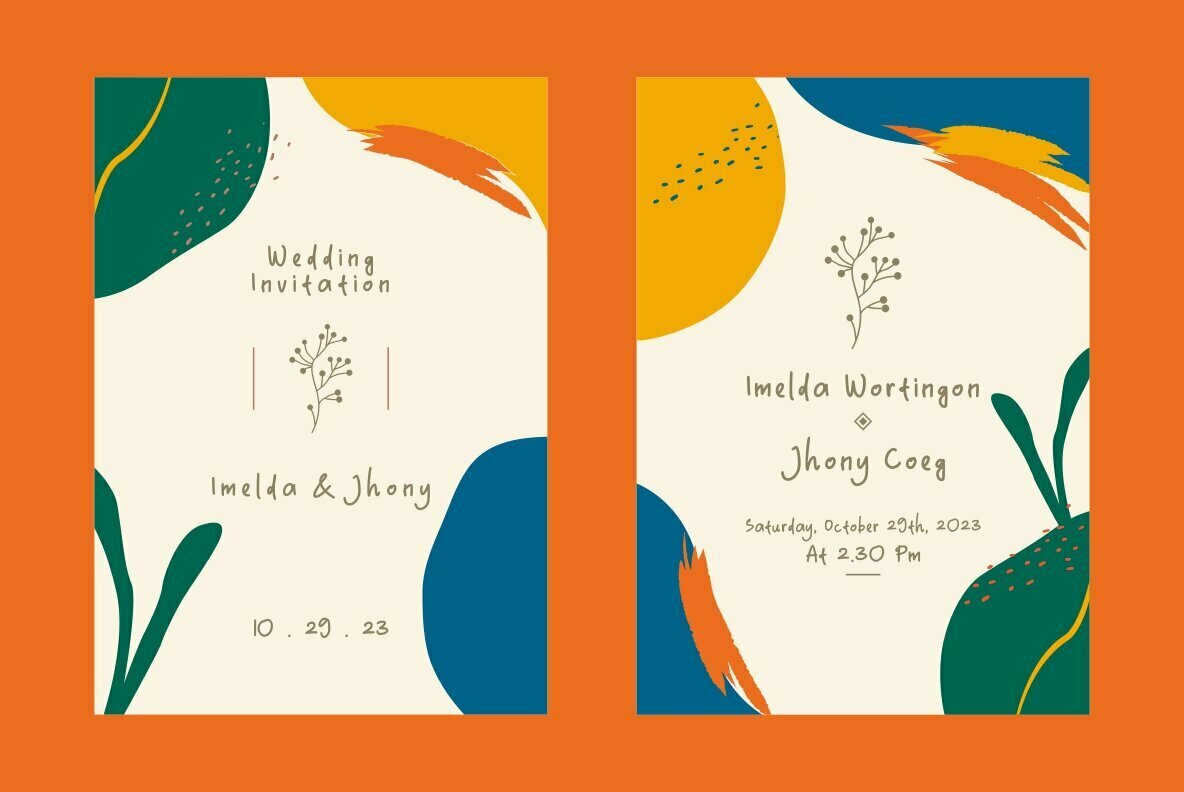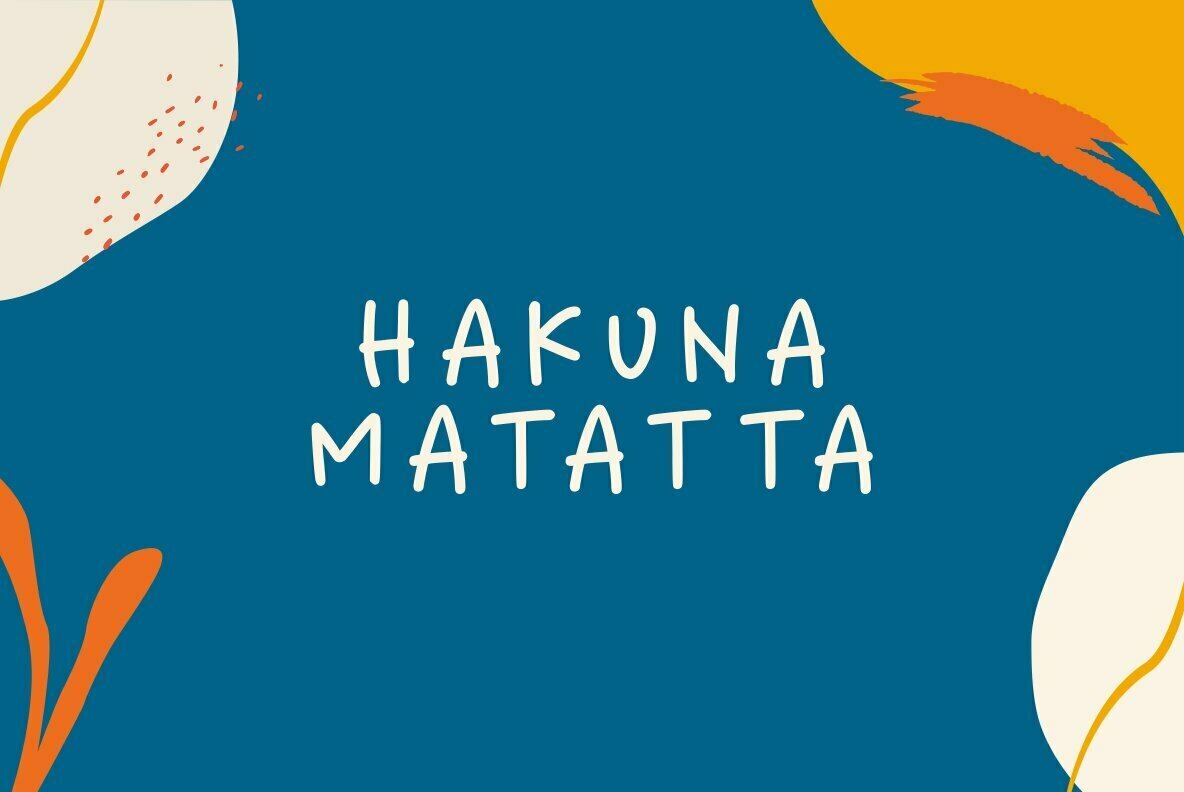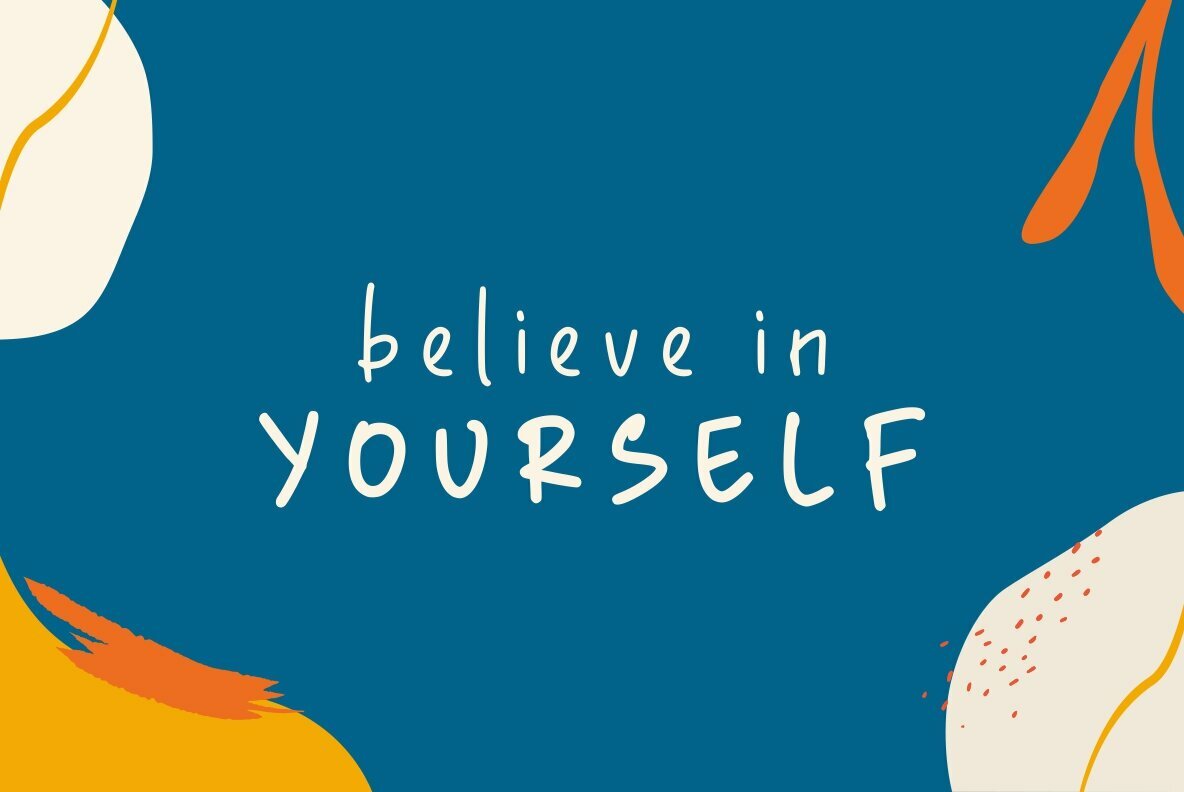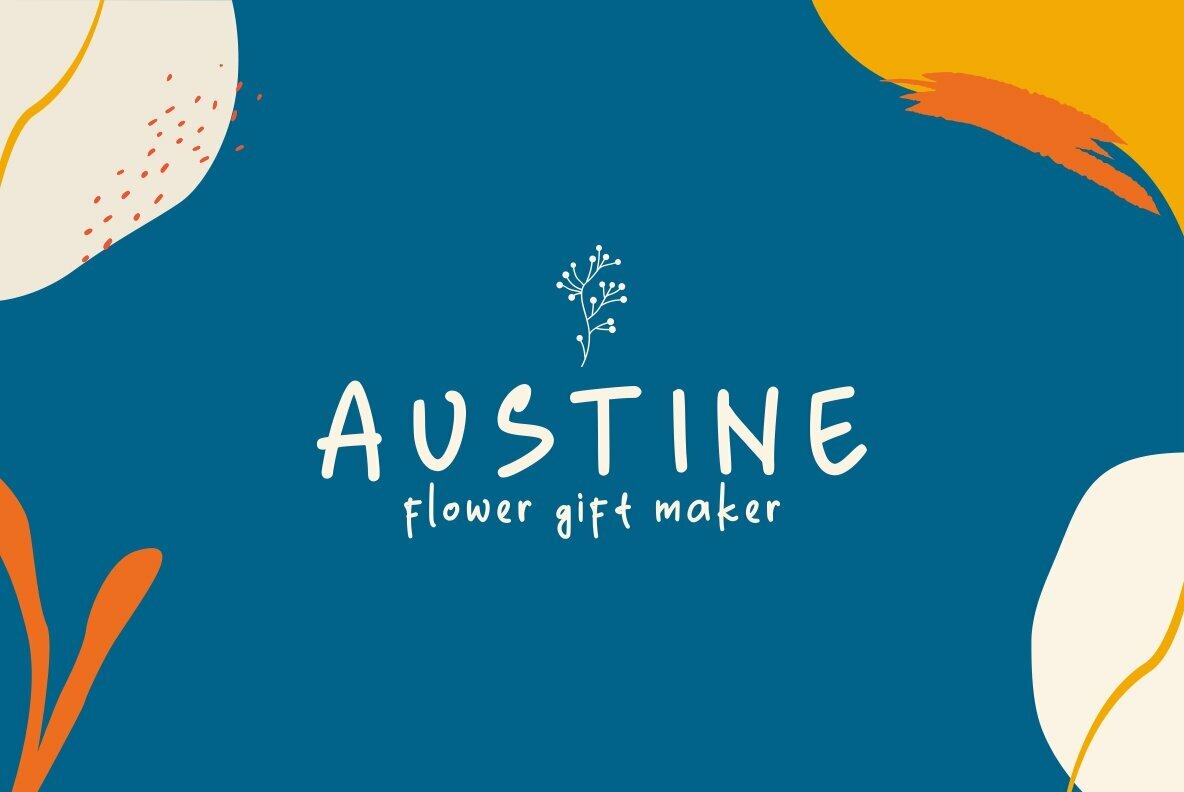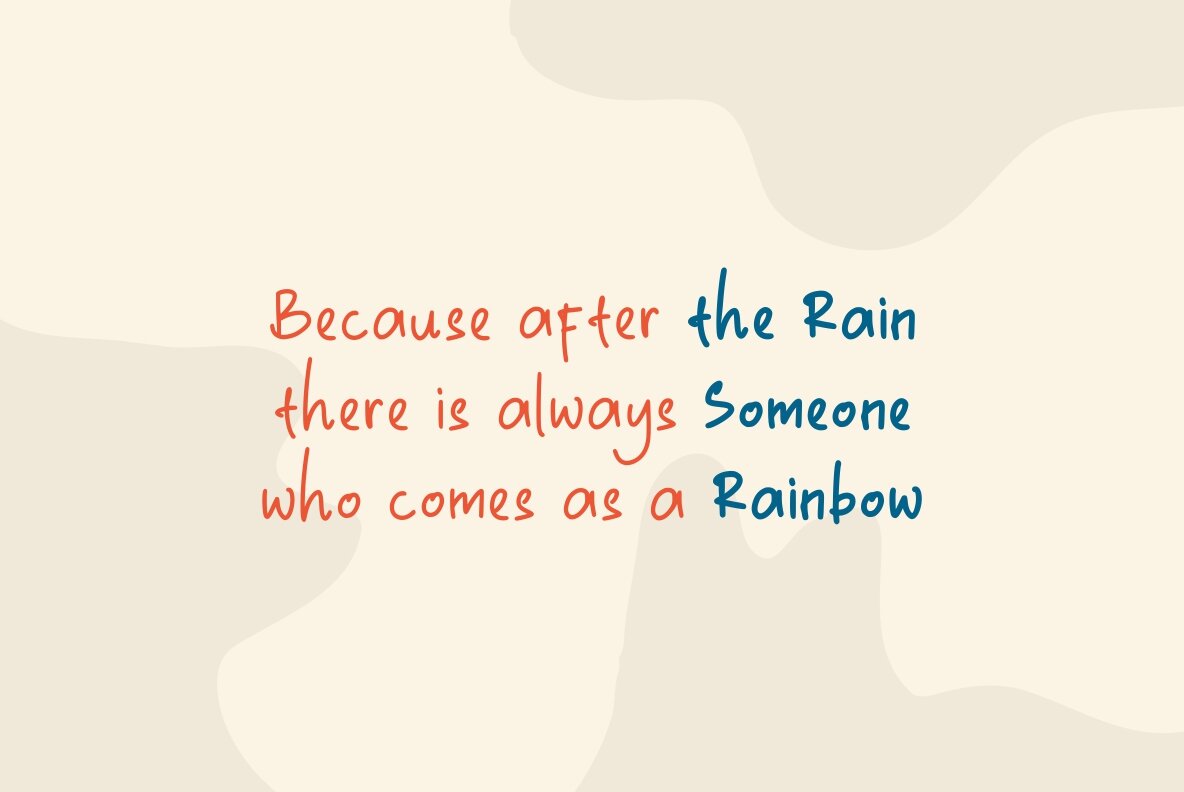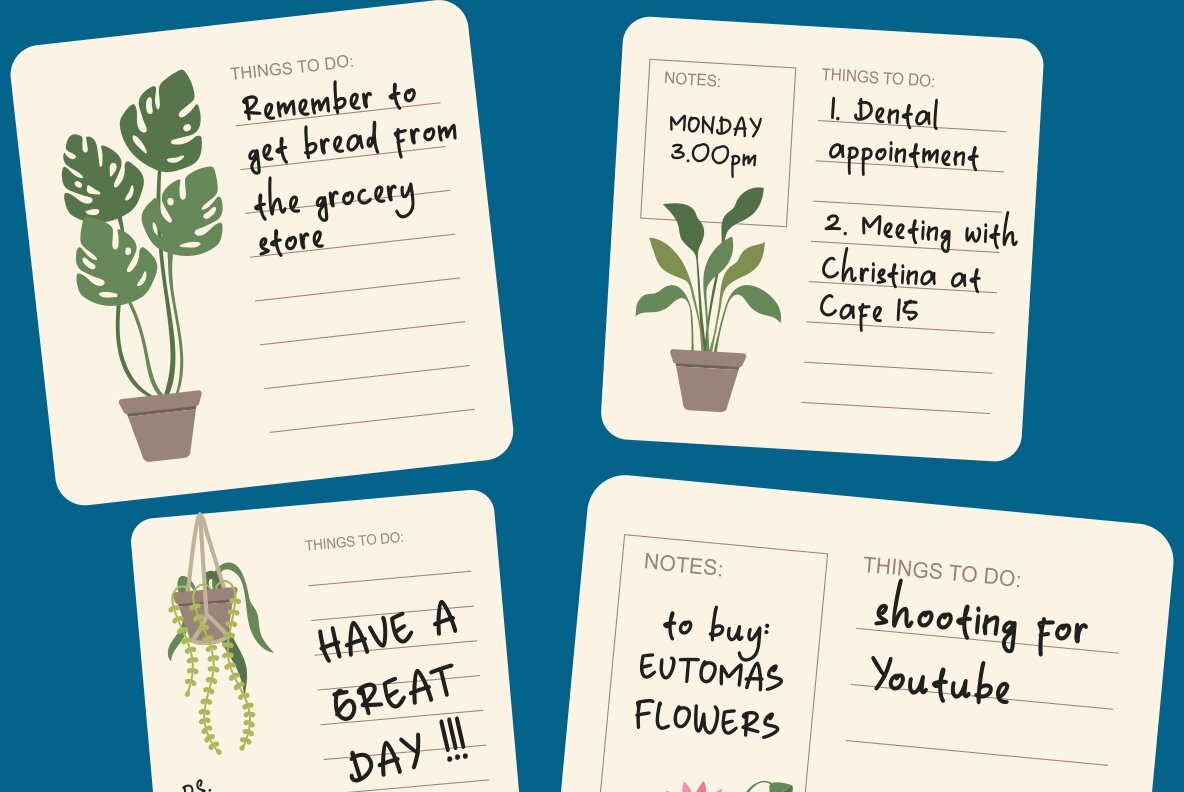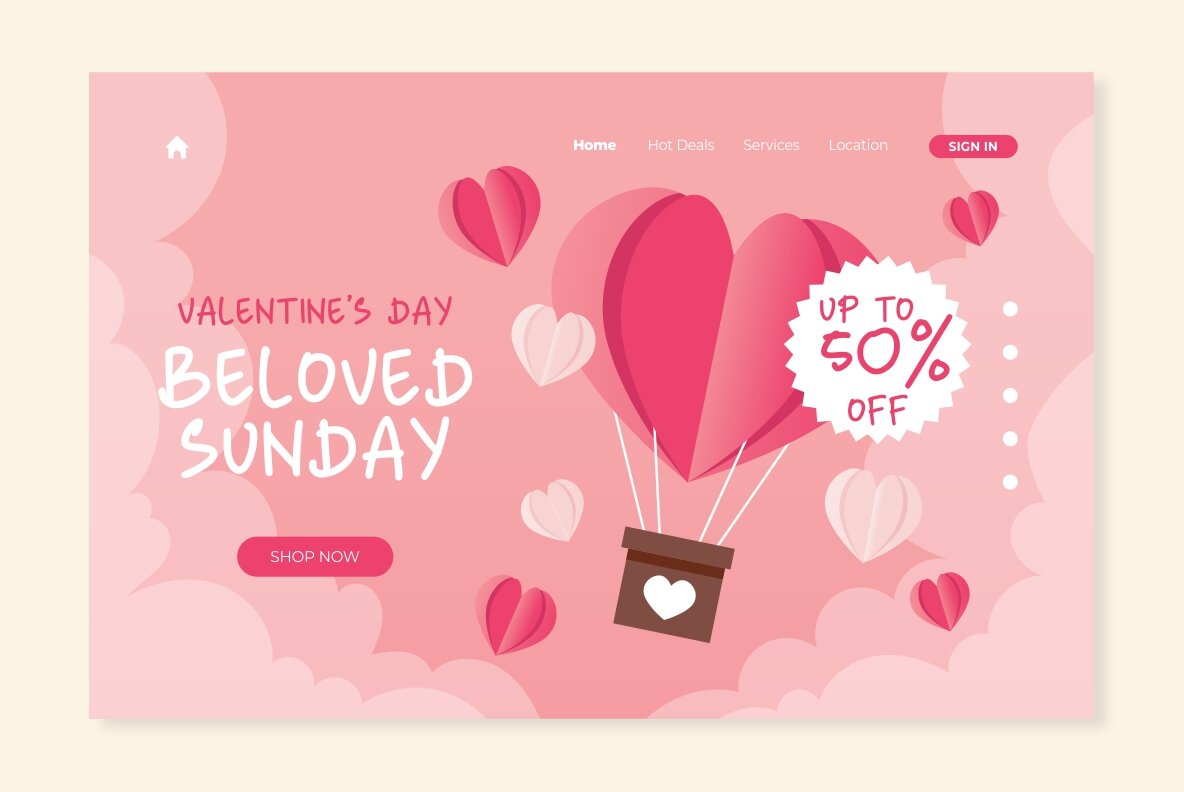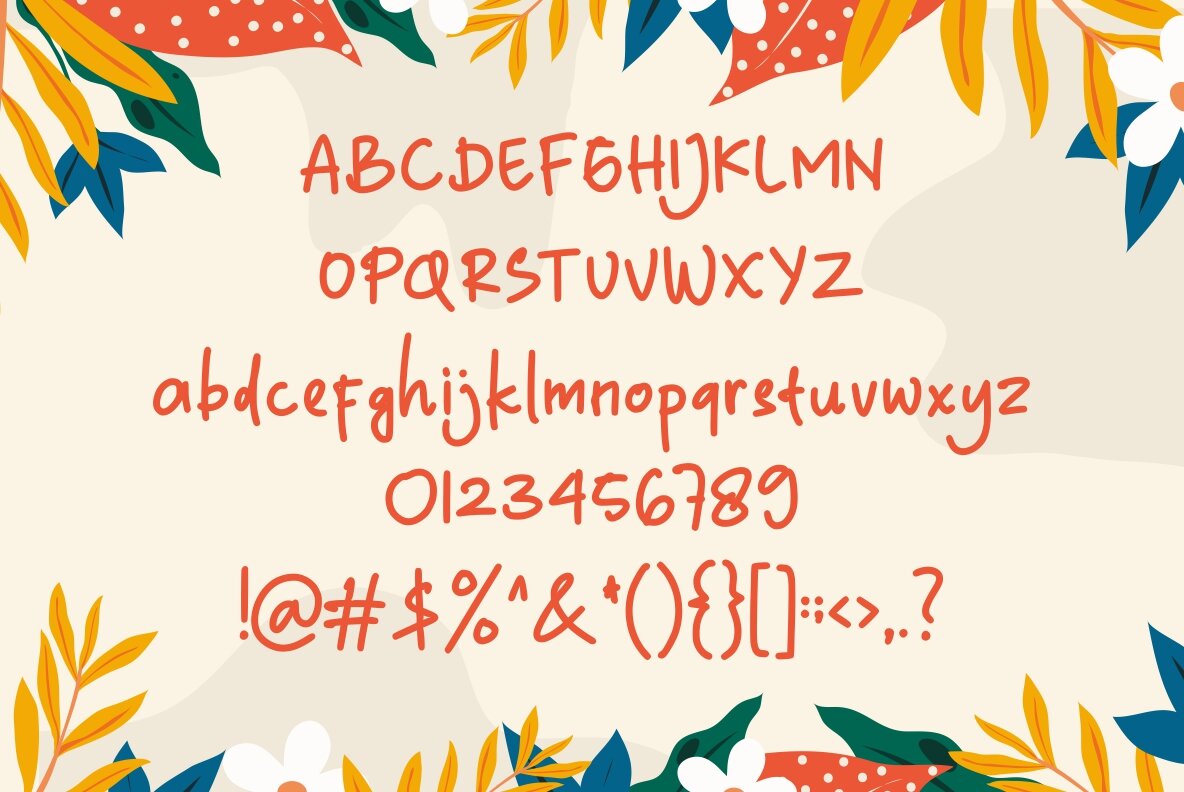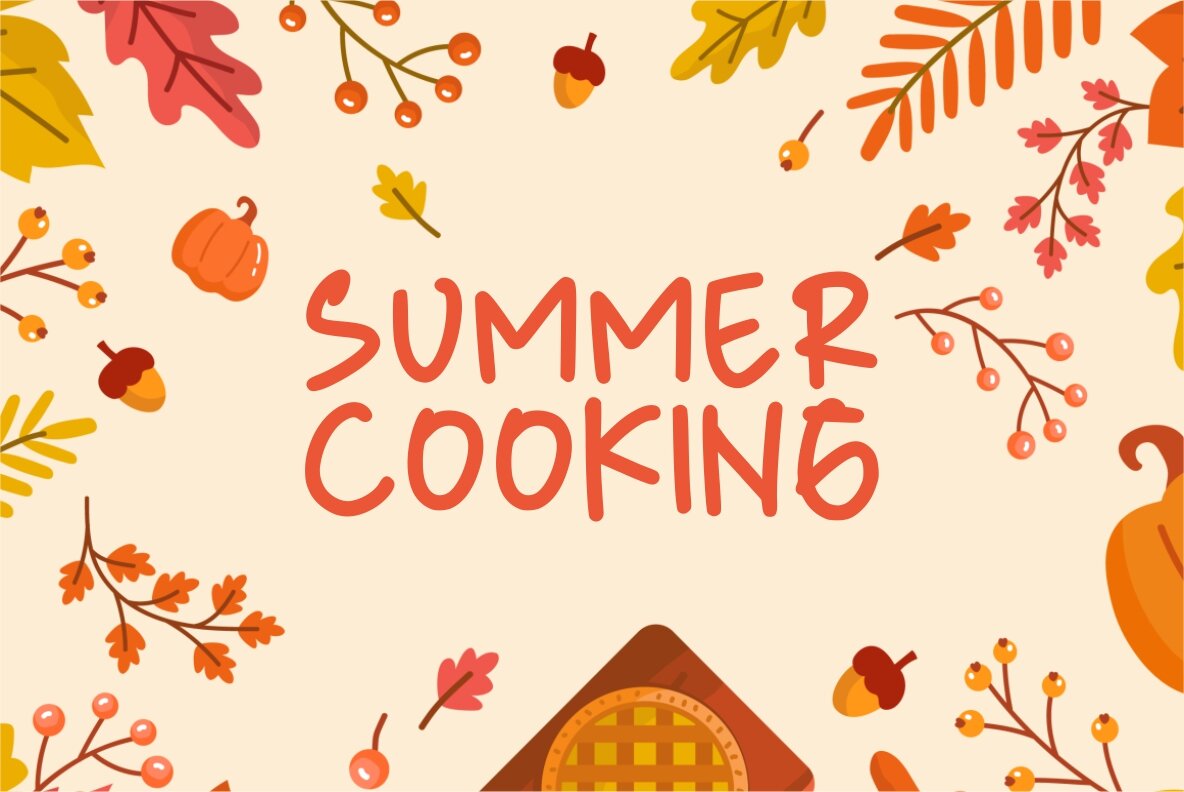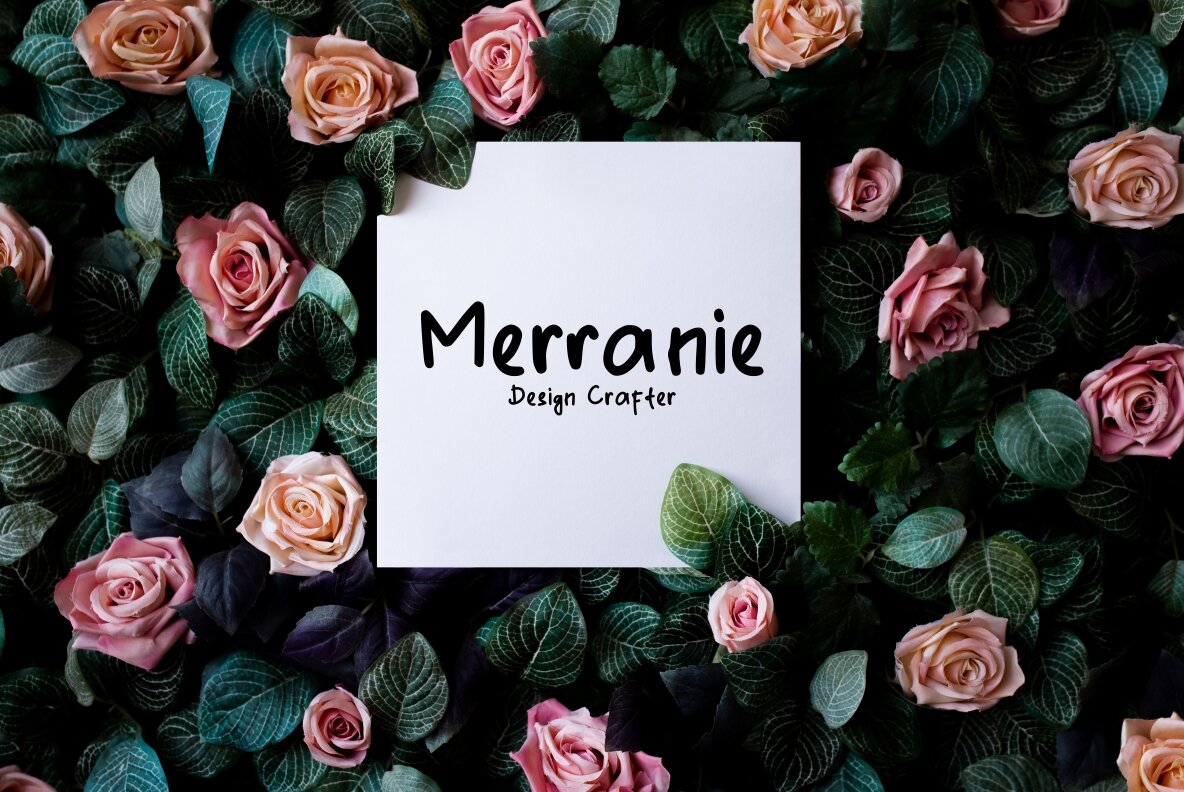
Yournotes Font
Discover the essence of authenticity with Yournotes, a typeface inspired by the purity of natural handwriting. Each stroke captures the elegance of handwritten script, tailored to complement a wide range of creative projects. Whether crafting logos, curating brand imagery, or designing engaging social media posts, Yournotes provides the versatility and style you seek.Yournotes: Authentic Handwritten Style Typeface
Capture the soul of genuine writing with Yournotes, perfect for those who appreciate the details in design.